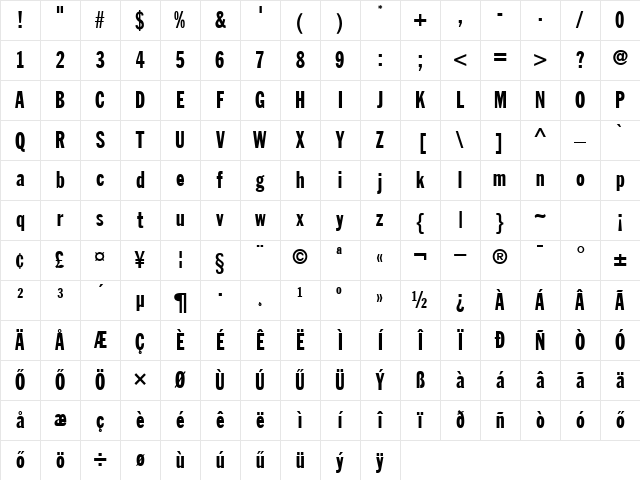
Complete Hu_Pericycle Cn Regular glyph index. Displaying only characters natively supported by Hu_Pericycle Cn Regular font.
Hu_Pericycle Cn is a composed and adaptable typeface that performs quietly and consistently across a wide range of design contexts.